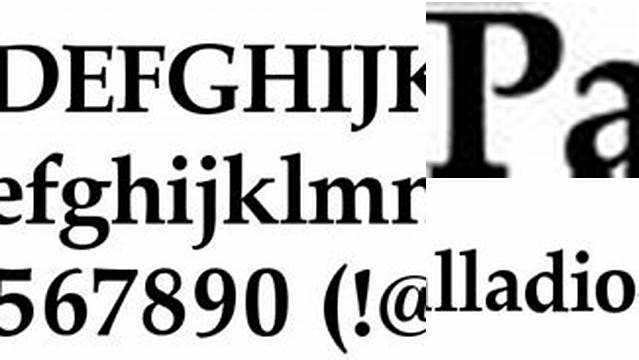
Hey guys! Are you on the hunt for a sophisticated and elegant font to elevate your designs? Look no further! Palladio Pro Bold is a fantastic choice, and the best part? You can snag it for free! In this comprehensive guide, we'll dive deep into everything you need to know about Palladio Pro Bold, where to find it, and how to use it effectively. So, let’s get started and unleash the power of this amazing font!
1. What is Palladio Pro Bold?
Let’s kick things off by understanding what exactly Palladio Pro Bold is. This font is a part of the Palladio family, a typeface known for its classic and humanist design. The bold variant adds extra weight and prominence, making it perfect for headlines, branding, and any situation where you need your text to stand out. Palladio Pro Bold exudes a sense of professionalism and elegance, making it a versatile choice for various design projects. Think of it as that reliable friend who always looks good, no matter the occasion! The beauty of this font lies in its readability and aesthetic appeal, something we'll explore further as we delve into its uses.
2. The History and Design of Palladio Pro
To truly appreciate Palladio Pro Bold, let's take a quick trip down memory lane. The Palladio typeface was inspired by the work of the renowned Italian Renaissance architect, Andrea Palladio. Known for his elegant and symmetrical designs, Palladio's architectural principles have been translated beautifully into this font family. The font reflects a sense of harmony and balance, making it visually pleasing and easy on the eyes. The Palladio Pro series builds upon this legacy, offering a refined and modernized take on the original design. This font is more than just a set of glyphs; it's a piece of art that carries historical significance. When you use Palladio Pro Bold, you're not just choosing a font; you're choosing a legacy.
3. Why Choose Palladio Pro Bold for Your Projects?
So, why should you specifically opt for Palladio Pro Bold? Well, there are several compelling reasons. Firstly, its boldness commands attention, making it ideal for titles, headings, and call-to-actions. Secondly, the humanist design ensures readability, even at smaller sizes. This makes it a fantastic choice for both print and digital applications. Finally, the professional and sophisticated aesthetic of Palladio Pro Bold can elevate the overall look and feel of your projects. Whether you're designing a sleek website, a professional brochure, or eye-catching marketing materials, this font adds a touch of class. Think of it as the secret ingredient that can transform your designs from good to great!
7. Palladio Pro Bold vs. Other Bold Fonts
How does Palladio Pro Bold stack up against other bold fonts in the market? Well, it has a unique blend of classic elegance and modern readability that sets it apart. While some bold fonts can appear clunky or overwhelming, Palladio Pro Bold maintains a refined and balanced aesthetic. Compared to heavier sans-serif fonts, it offers a more sophisticated and less aggressive feel. Think of it as the difference between a sharp suit and a casual t-shirt – both have their place, but they convey different messages. Other popular bold fonts like Helvetica Bold or Arial Bold are certainly versatile, but Palladio Pro Bold brings a touch of distinctiveness that can elevate your designs. It's about finding the right tool for the job, and in many cases, Palladio Pro Bold fits the bill perfectly.
8. Using Palladio Pro Bold in Graphic Design Projects
Okay, let’s get practical! How can you effectively use Palladio Pro Bold in your graphic design projects? The key is to leverage its boldness and elegance strategically. Use it for headlines and titles to grab attention, but balance it with a more subtle body text font for readability. Consider using it in branding materials like logos and business cards to convey professionalism and sophistication. Palladio Pro Bold also works beautifully in posters and flyers where you need a strong visual impact. Experiment with different font sizes and weights to see what works best for your specific design. Remember, great design is all about balance and harmony, and Palladio Pro Bold can be a crucial element in achieving that.
9. Palladio Pro Bold for Web Design
In the realm of web design, Palladio Pro Bold can be a game-changer. A well-chosen font can significantly impact the user experience, and Palladio Pro Bold offers a perfect blend of aesthetics and readability for online platforms. Use it for website headers, navigation menus, and key call-to-actions to draw attention to important elements. However, remember to optimize the font for web use to ensure fast loading times. Services like Google Fonts can help you embed fonts efficiently. Also, consider using CSS to control the font's appearance and ensure it renders correctly across different browsers and devices. A well-designed website should not only look good but also function seamlessly, and typography plays a vital role in achieving that.
30. Final Thoughts on Palladio Pro Bold Font Free Download
So, there you have it – a comprehensive guide to Palladio Pro Bold and how to find a free download. This font is a fantastic choice for adding a touch of elegance and sophistication to your designs. Remember to always respect font licenses and use reputable sources for downloads. With its timeless appeal and versatility, Palladio Pro Bold is sure to become a valuable asset in your typographic toolkit. Happy designing, guys! We hope this article has provided you with all the information you need to get started with Palladio Pro Bold today!